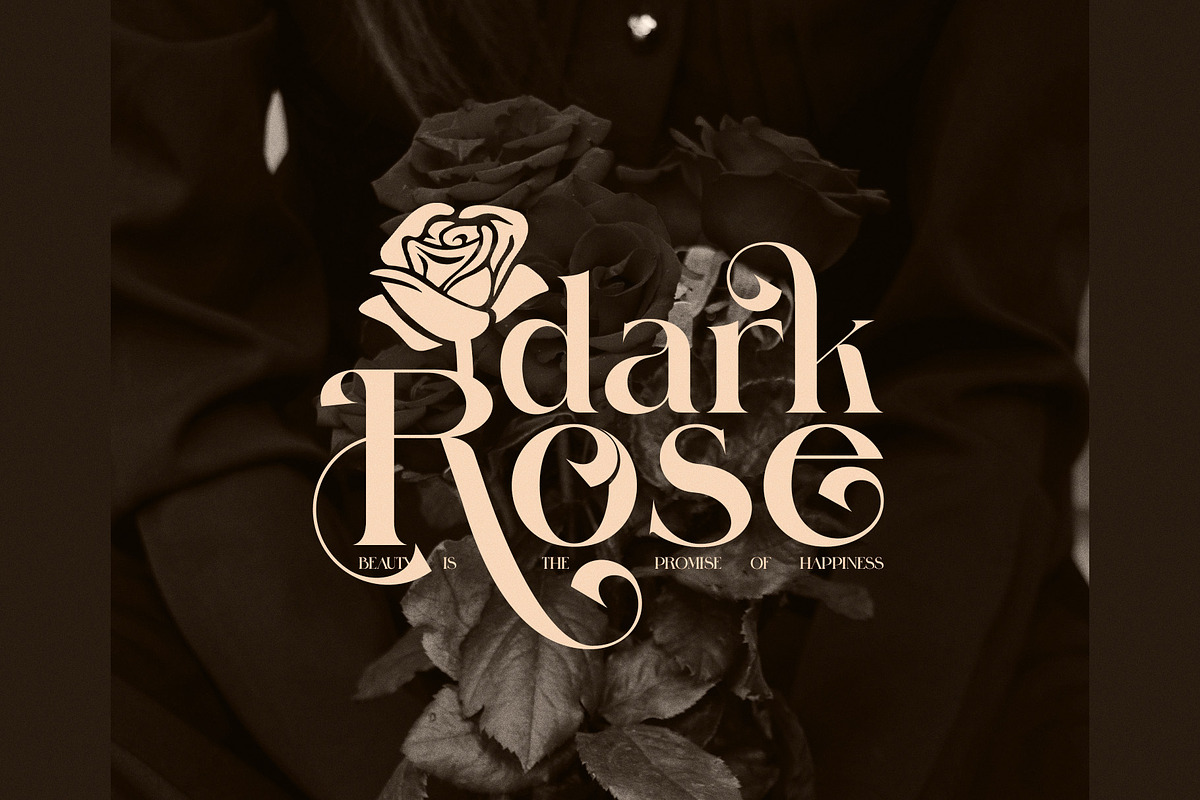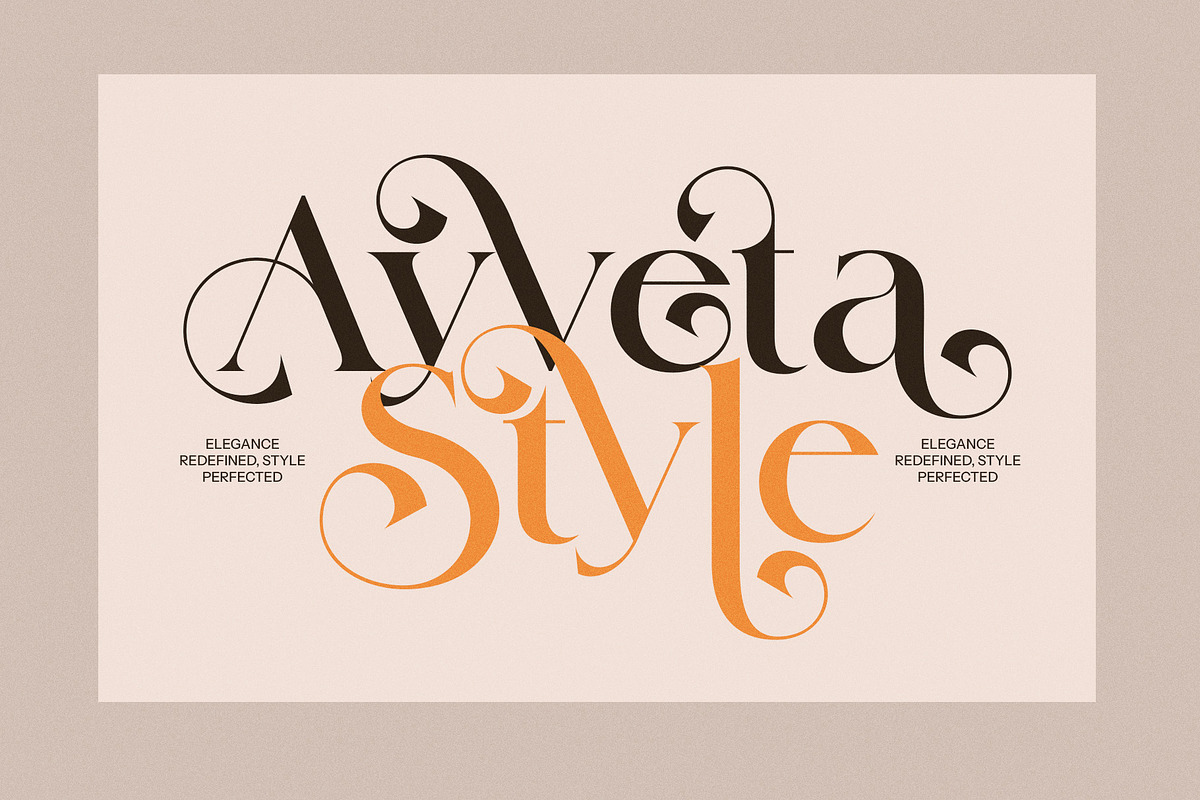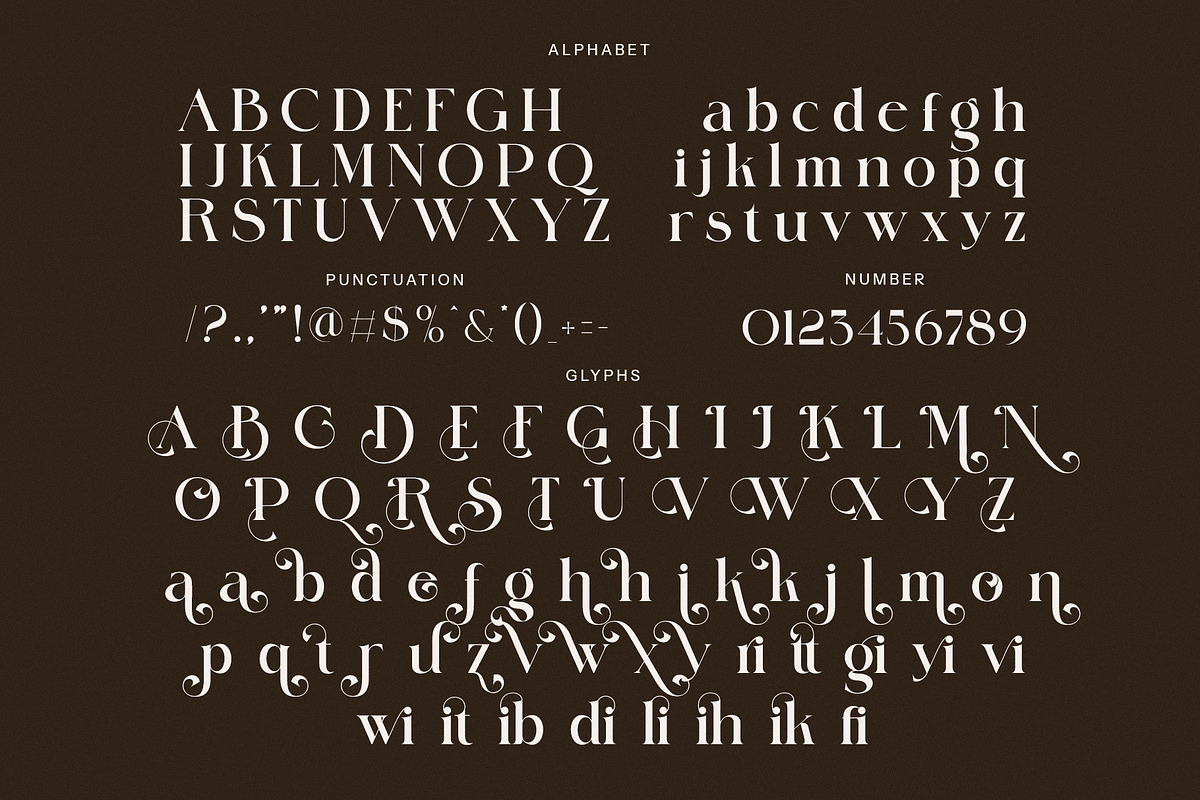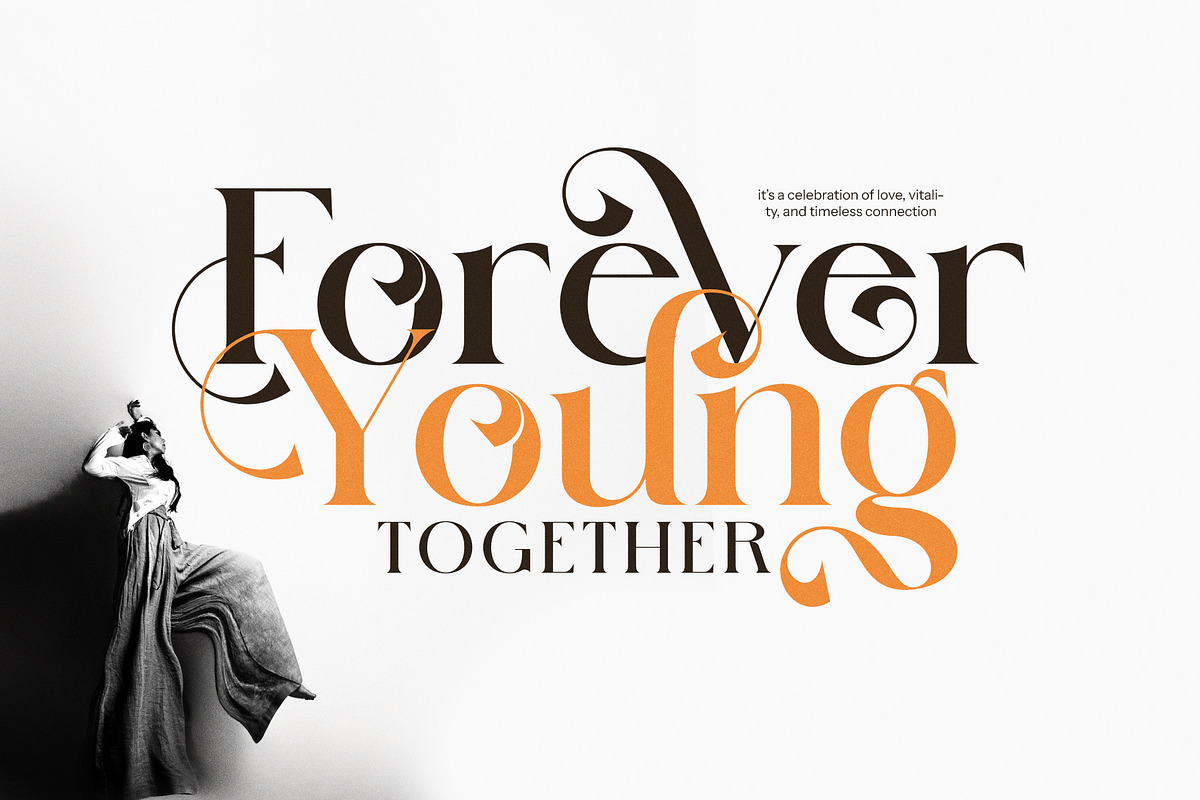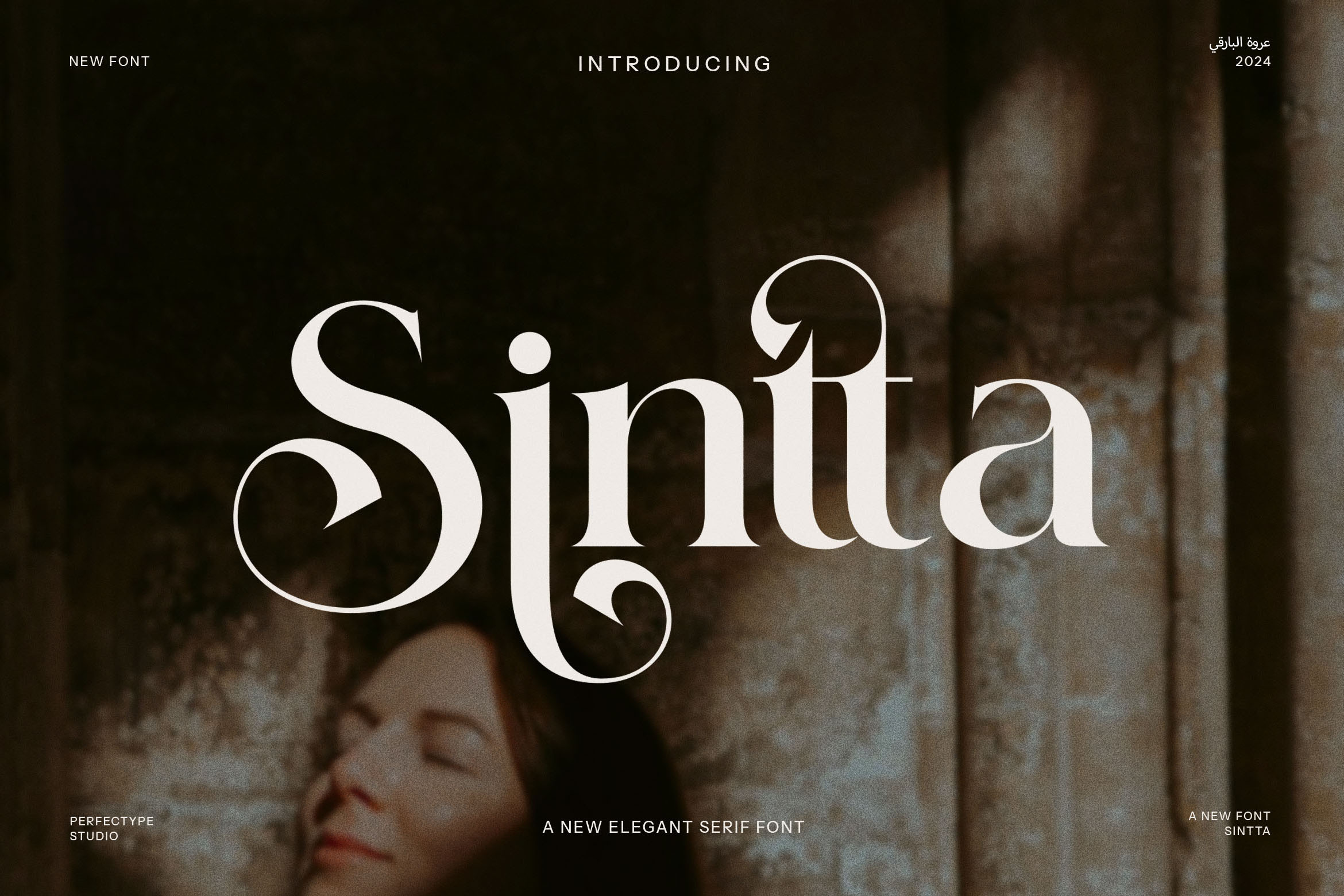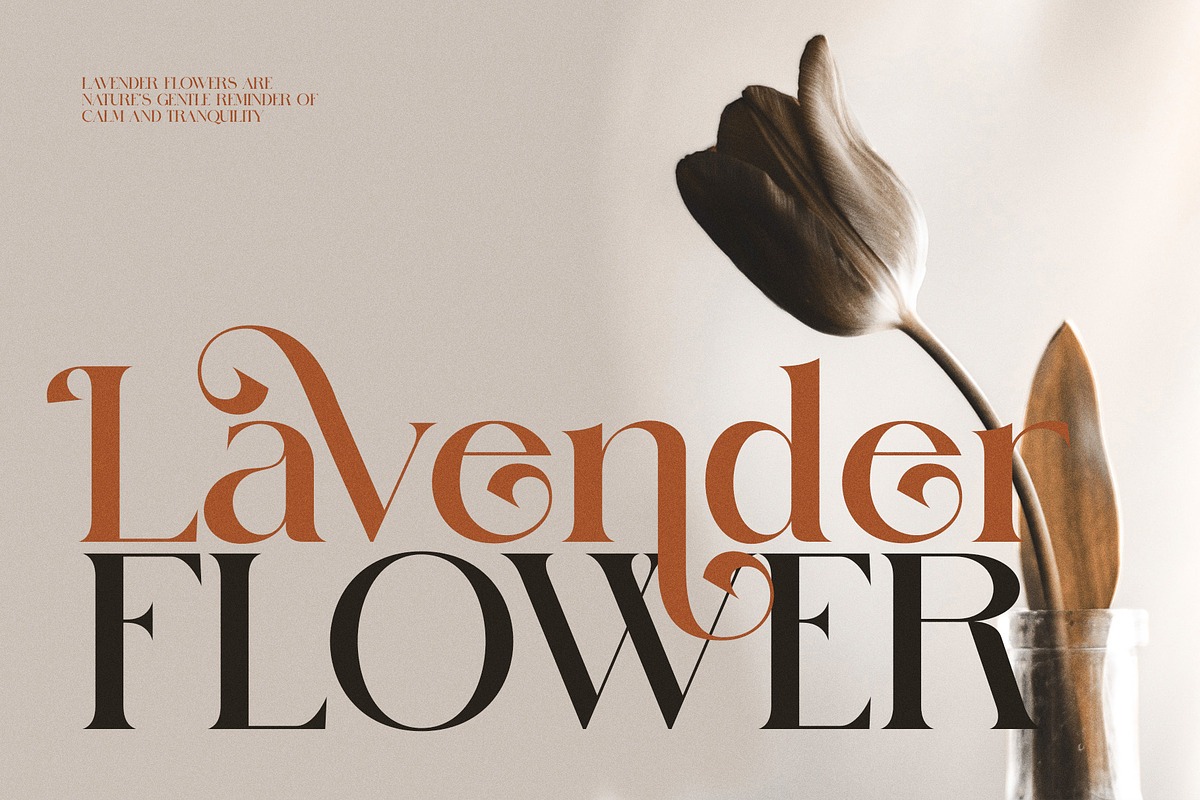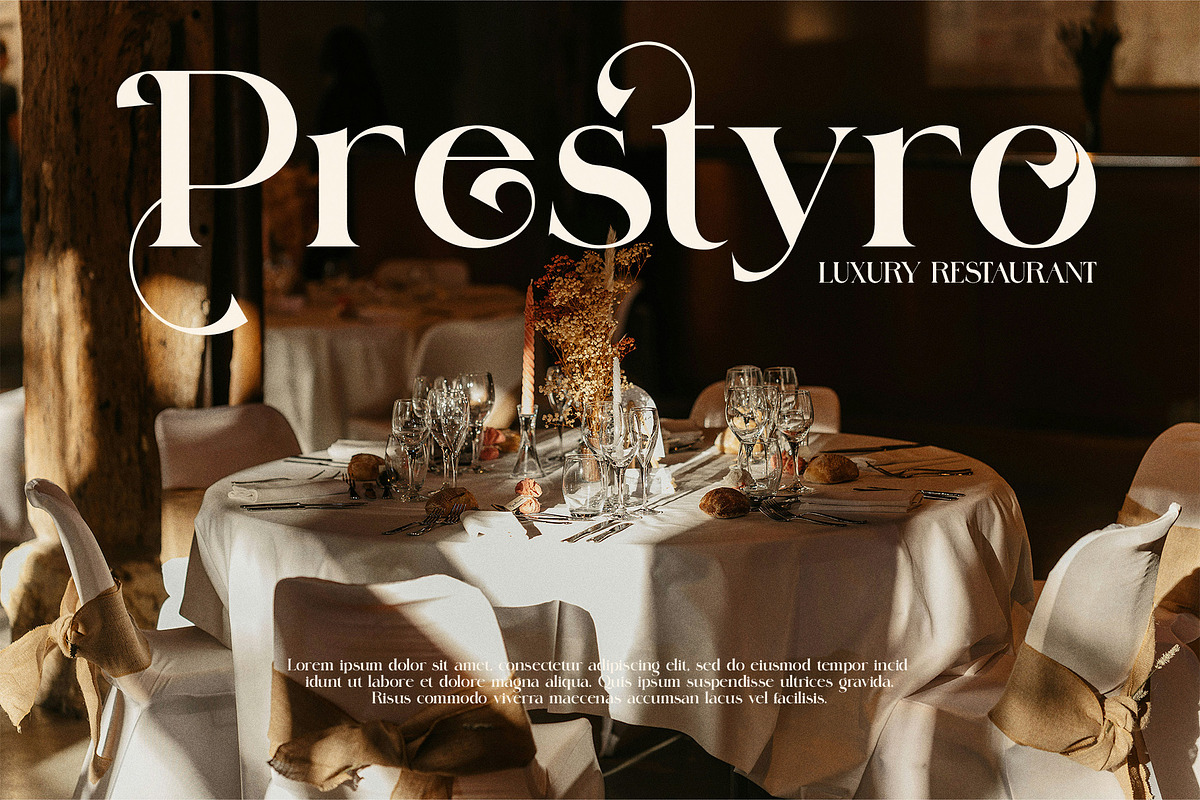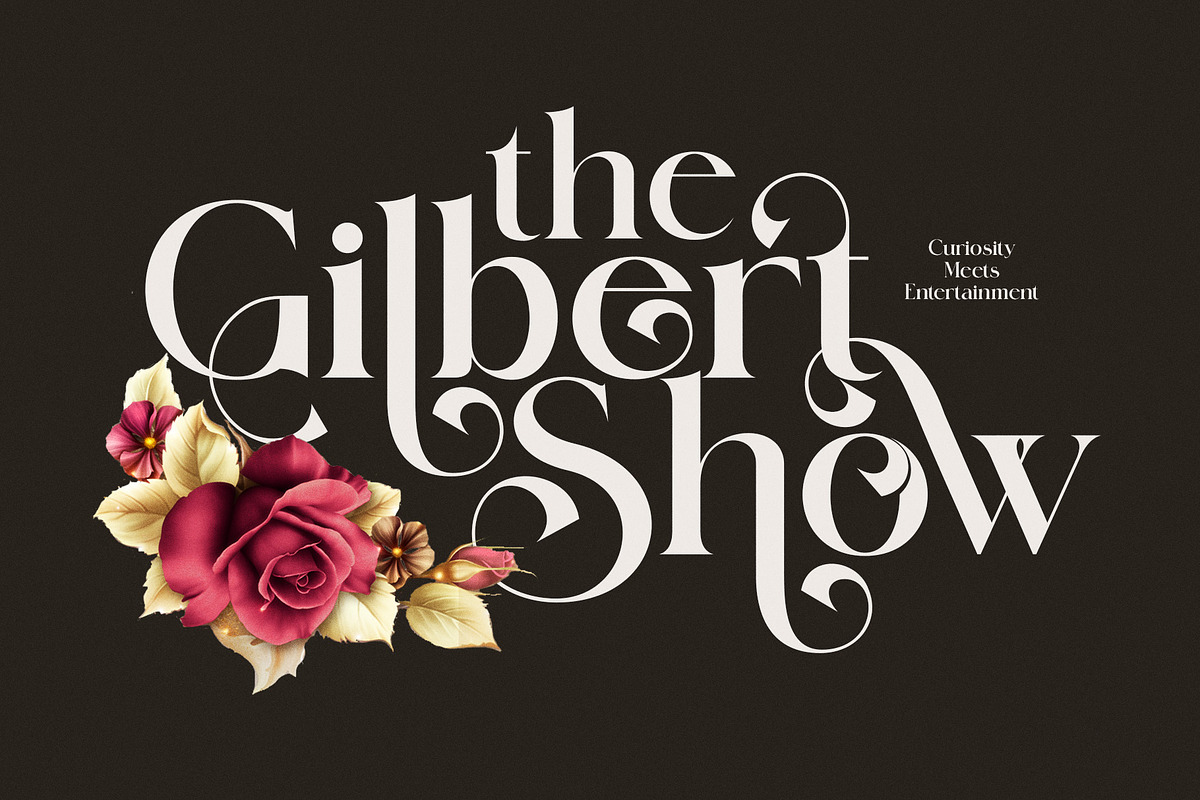
Sintta Elegant Serif Font
Sintta Elegant Serif Font is a sophisticated and modern serif typeface designed to elevate your design projects. Its timeless, graceful letterforms exude luxury, making it the perfect choice for high-end branding, logos, websites, and editorial work. The clean lines and refined details of Sintta offer an air of elegance, ensuring your designs look both stylish and expensive.
This font is carefully crafted with beautiful ligatures and alternates, allowing for seamless and sophisticated typography in any creative layout. Whether you're designing for a boutique, a luxury product, a food brand, or even retro-inspired advertising, Sintta brings an element of class to any project. Its versatility shines through across various applications, from invitations and event branding to magazine layouts and advertisements.
Sintta Elegant Serif Font is ideal for projects that require a blend of modern refinement and traditional charm. Its thoughtful design ensures that every word you use appears polished and unique. With its elegant curves and balanced proportions, it strikes a perfect harmony between form and function, making it a top choice for designers seeking a refined typeface with a luxurious feel. If you’re looking to make a lasting impression, Sintta Elegant Serif is the perfect font to bring your creative vision to life.